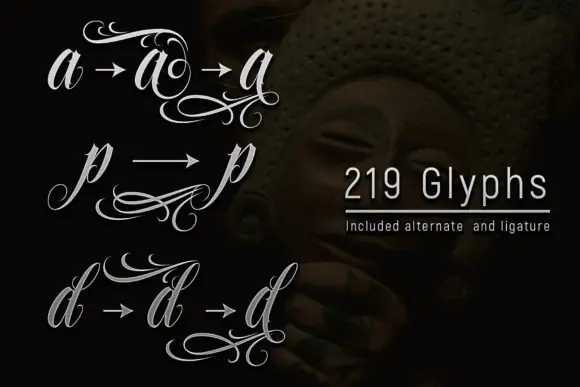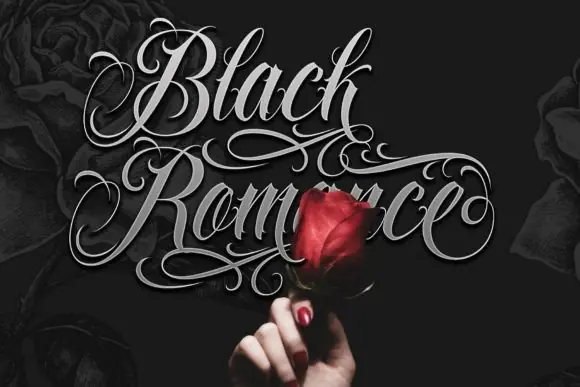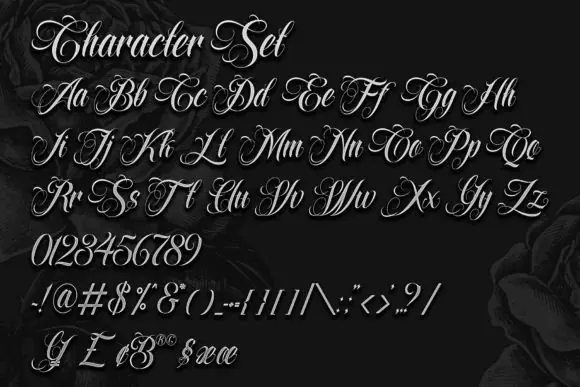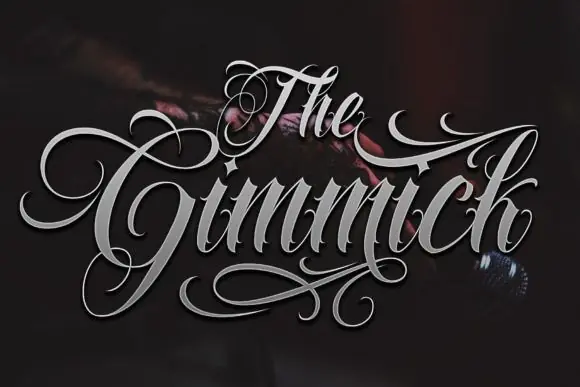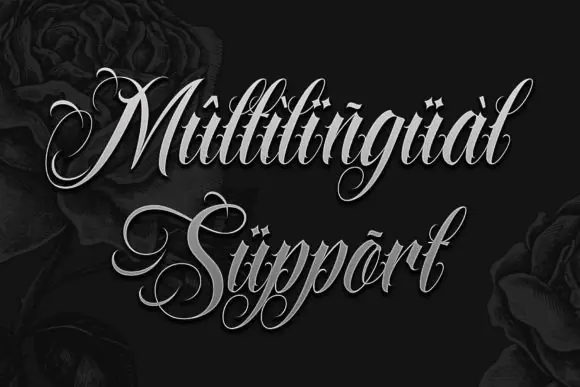
Angelicha Font | Contemporary Blackletter Tattoo Font for Logos, T-Shirts, Posters, Flyers, Branding & Bold Gothic Designs
Create bold, stylish, and powerful designs with Angelicha Font, a contemporary blackletter tattoo font made for projects that need a strong gothic, edgy, and professional appearance. This font blends classic blackletter character with a modern tattoo-inspired style, making it suitable for both vintage and contemporary design work.
Angelicha Font is perfect for logos, t-shirt designs, posters, flyers, apparel graphics, brand identity items, stickers, labels, product packaging, album covers, social media graphics, wall art, barbershop branding, motorcycle-themed designs, streetwear graphics, and other creative projects that need bold typography.
Its striking blackletter look gives your text a confident and memorable visual impact. Whether you are designing tattoo-style artwork, clothing graphics, promotional flyers, or a strong brand identity, Angelicha Font can help your work stand out with a dramatic and polished style.
• Contemporary blackletter tattoo style
• Bold, gothic, and eye-catching appearance
• Great for logos, t-shirts, posters, and flyers
• Perfect for brand identity and promotional designs
• Suitable for both modern and vintage creative projects
• Adds strong personality and premium visual impact
Angelicha Font is a great choice for designers, tattoo artists, crafters, and digital product sellers who want to create bold, professional, and unforgettable designs with a modern blackletter look.